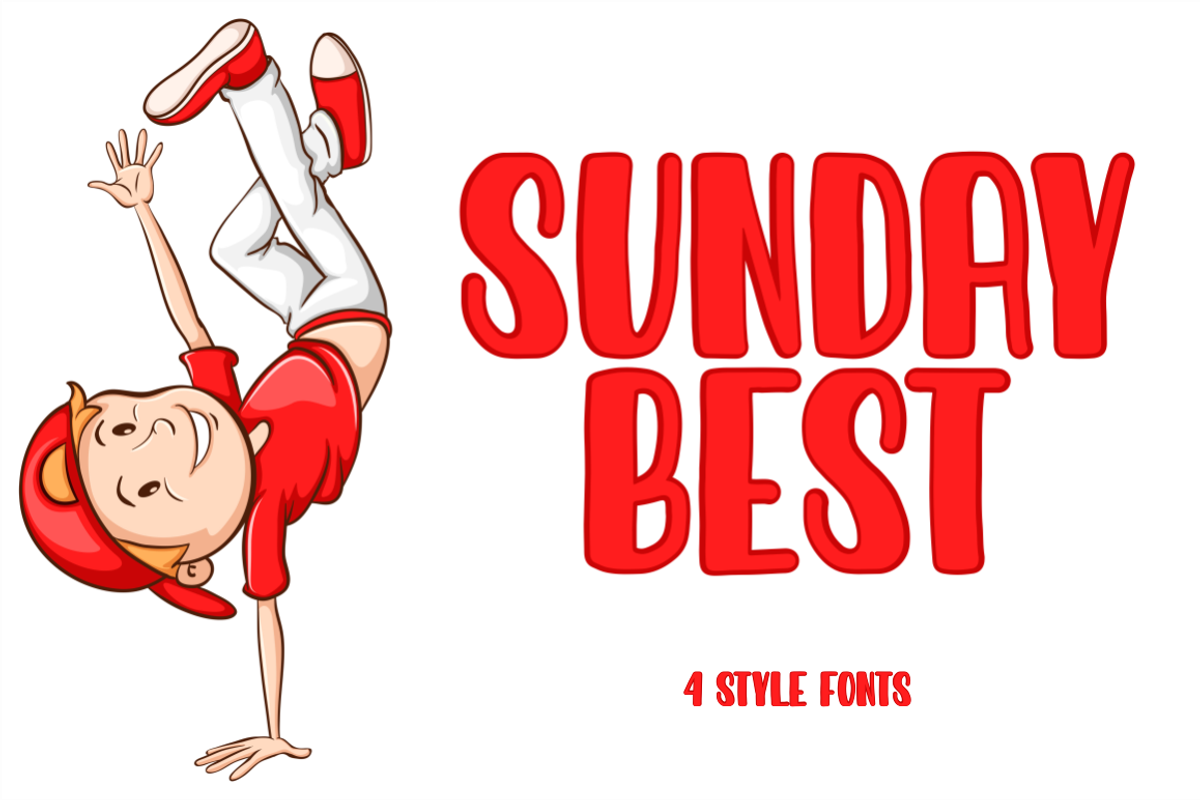
Sunday Best - 4 Style Fonts Free Download is a charming and versatile font collection featuring four beautifully coordinated styles—perfect for creative projects that need a mix of elegance and personality. With a combination of script, serif, sans-serif, and decorative options, this pack is ideal for invitations, branding, logos, packaging, and editorial layouts.
Each style in the Sunday Best set complements the others, giving you the flexibility to create layered, cohesive typography with a handcrafted feel. Whether you're designing a wedding suite or stylish social media content, this font pack gives you all the tools to create something truly special.